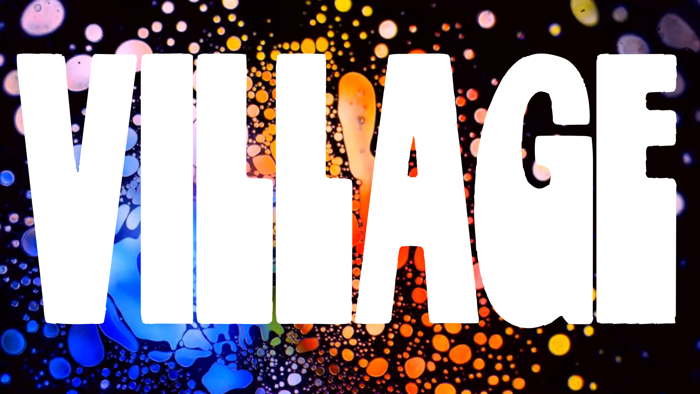
Village Font
For the first time, here it is the restoration of the original "R" and "T" characters of this font, but i also have leaved the "Orbit" versions as the minus characters.